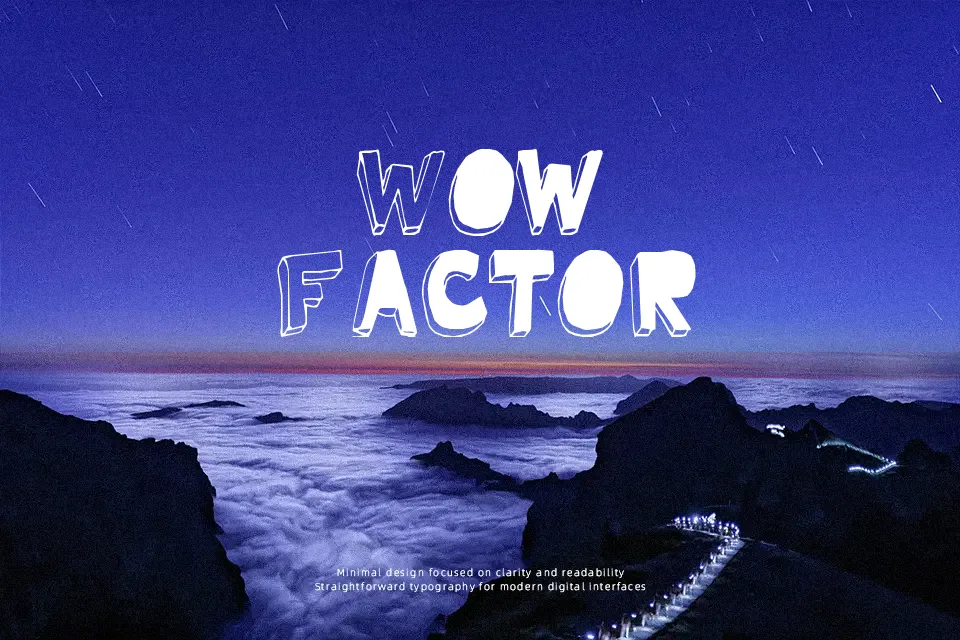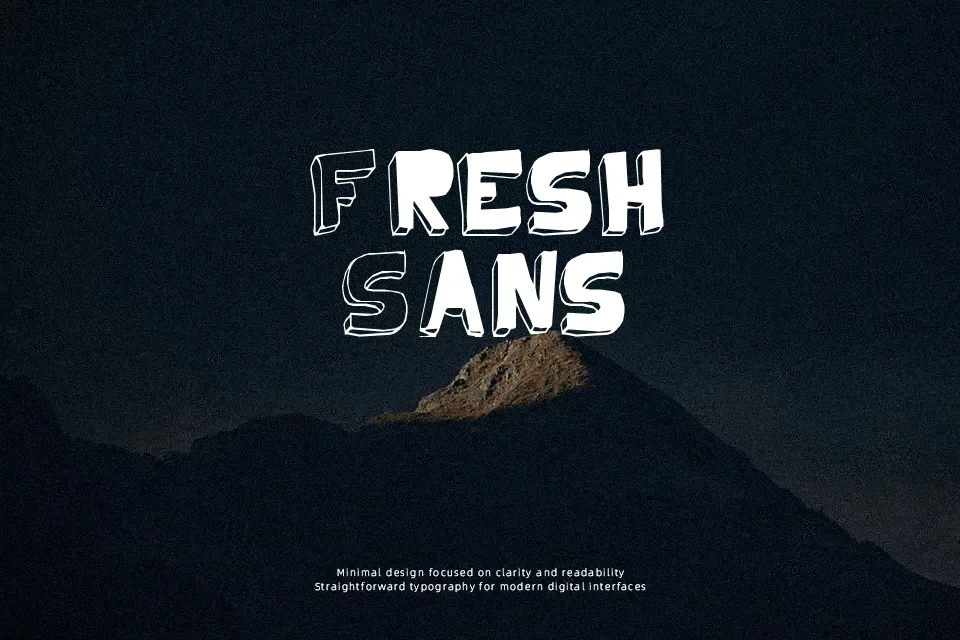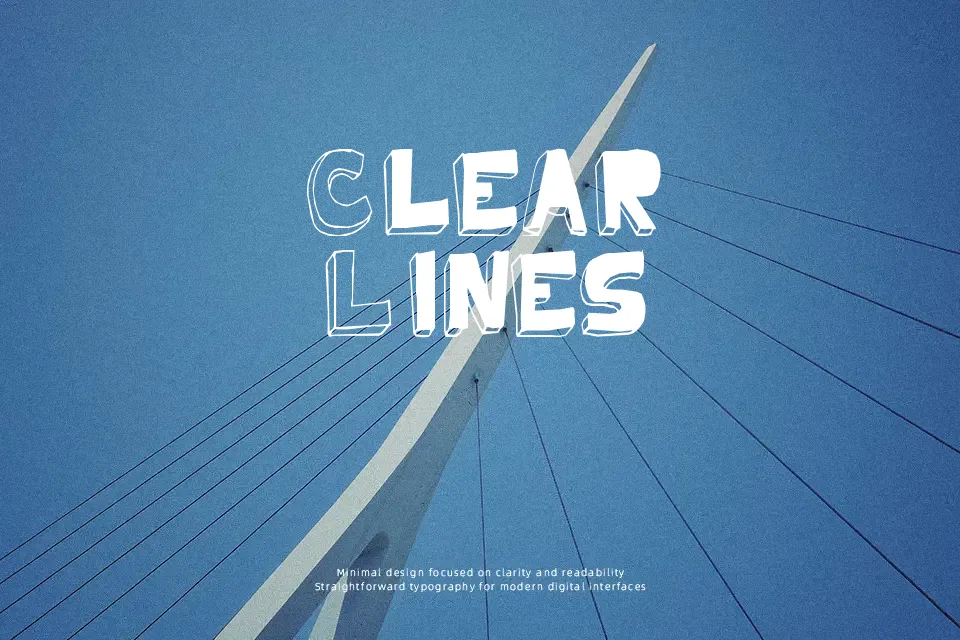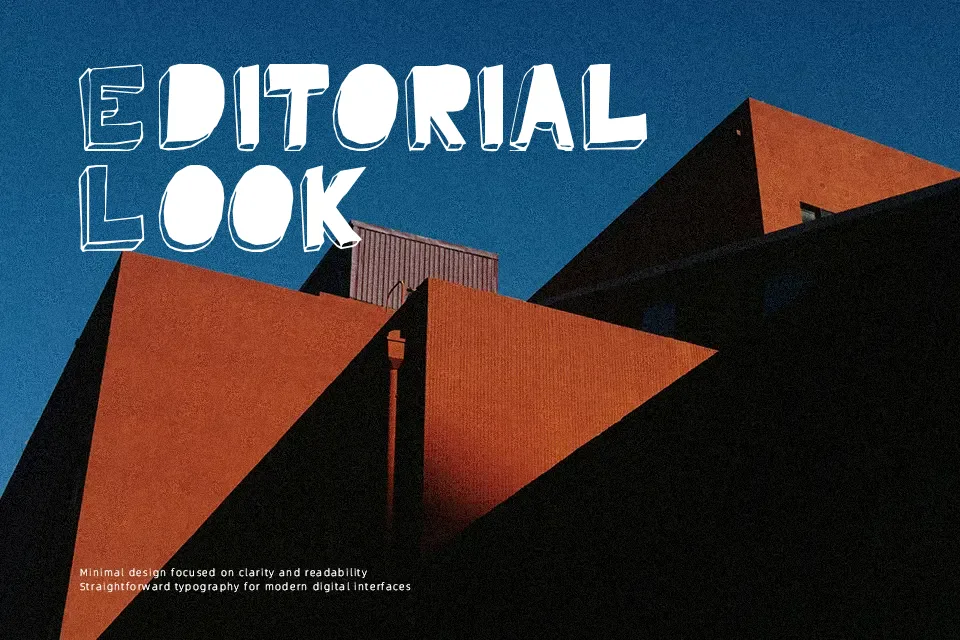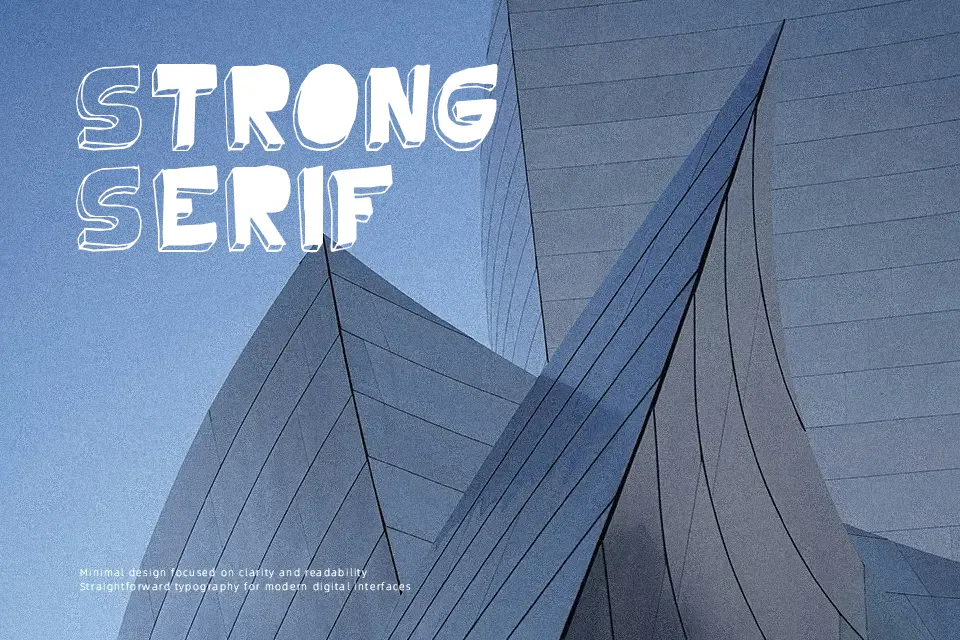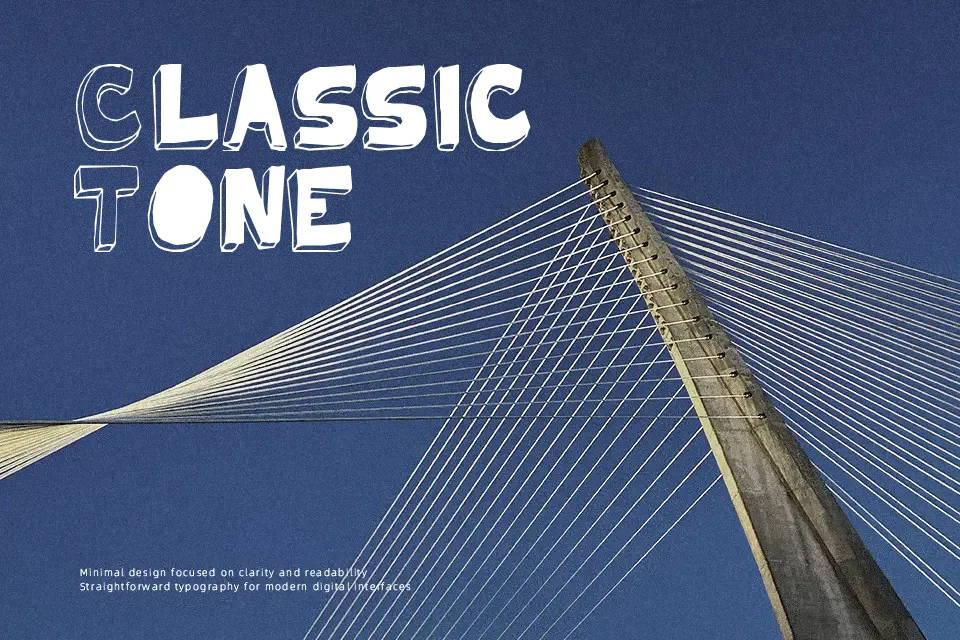
Tweedy Erc 01 Font
Tweedy Erc 01 Font features heavy, hand-drawn letterforms defined by plump contours, soft corners, and deliberate variations in stroke weight. The design pairs compact spacing with exaggerated proportions, creating a lively rhythm across display titles and comic covers. At large scale, the typeface delivers strong visual weight, though dense character outlines compromise readability whenever applied to continuous body text or compact interface labels. Numerals and punctuation carry the same bubbly personality, integrating smoothly into energetic marketing graphics and youth-oriented merchandise. The generous mass of the glyphs ensures immediate clarity from a distance, making the letterforms most effective in short, punchy promotional headlines.
Best For: comic book covers, children’s event posters, street banner headlines
Not Ideal For: continuous body text, corporate annual reports, dense legal documents
Perfect for advertising, headline, and kids, with a bold and cartoon style.